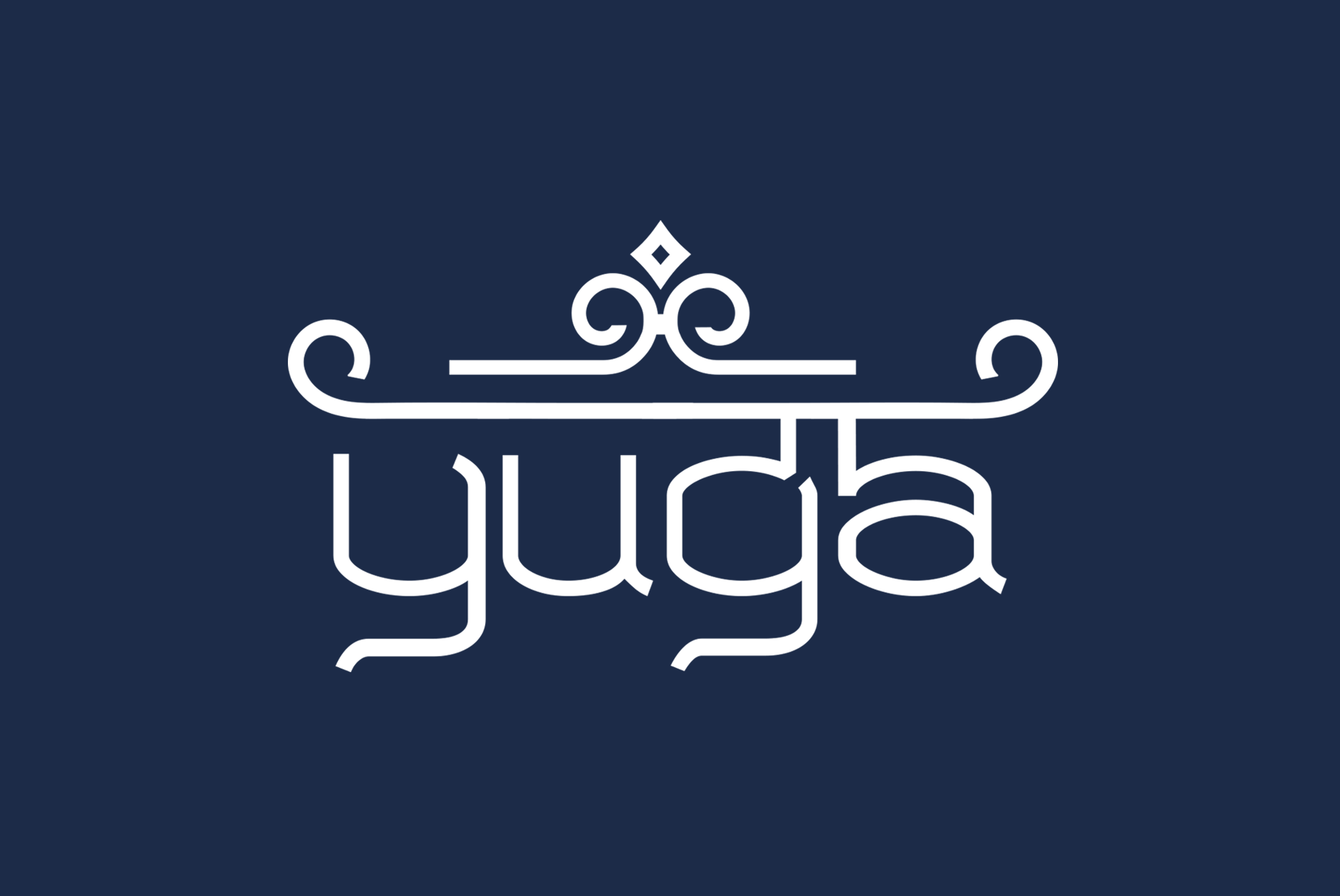
Yuga Sanskrit - English Font
Yuga is an experimental fusion between elegant Sanskrit type forms and modern english alphabet. Contains - TTF, webfont, SVG